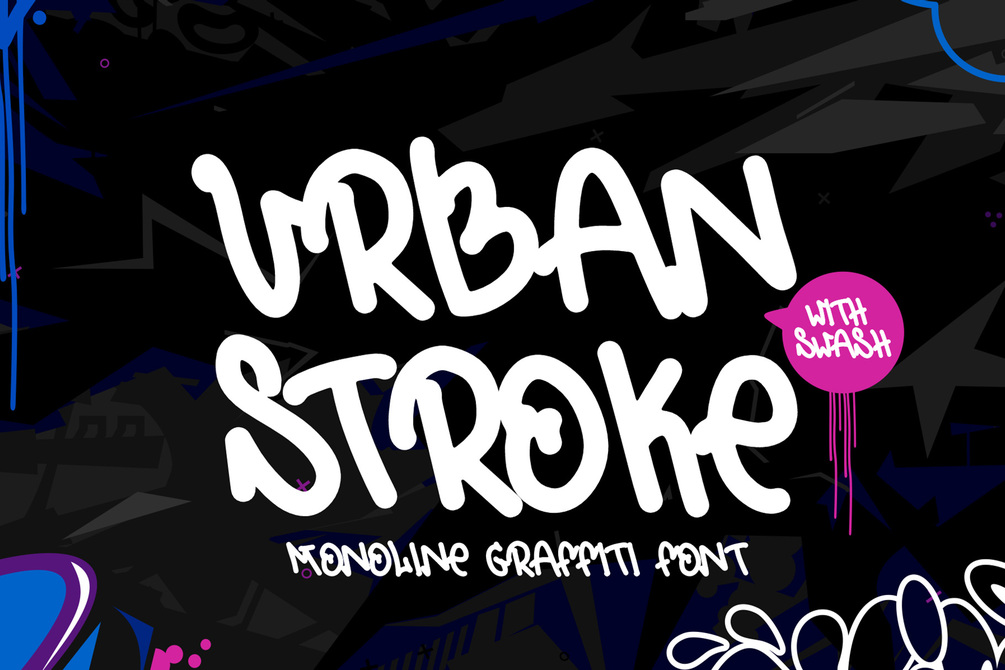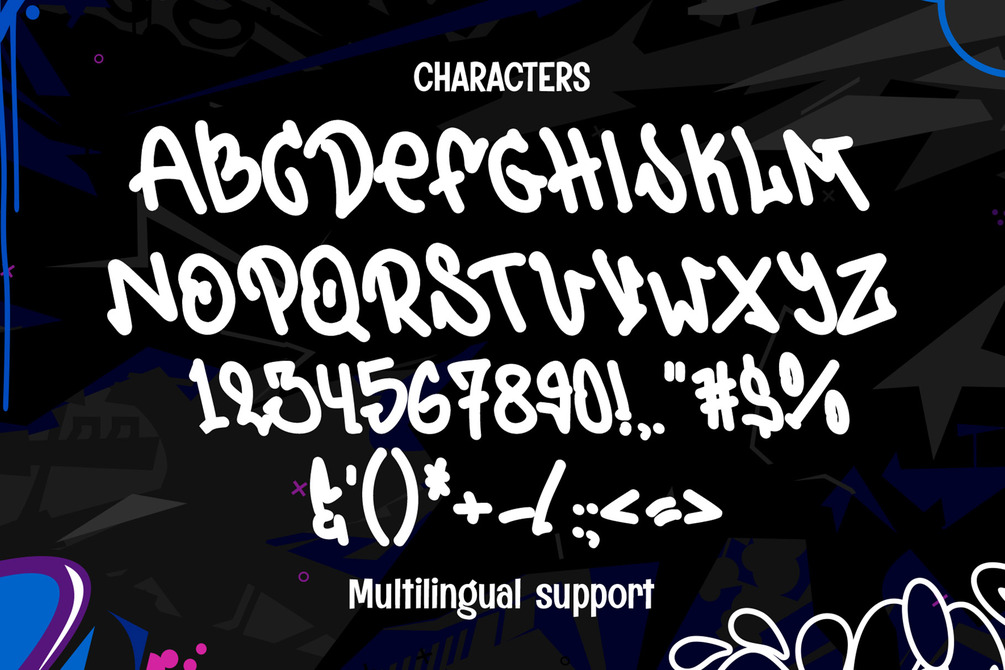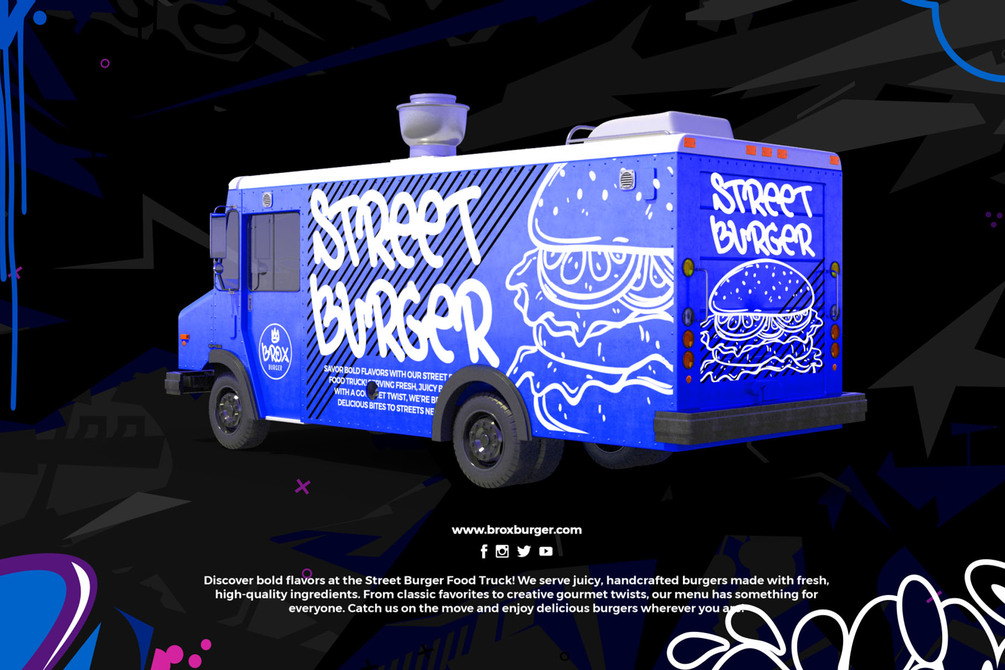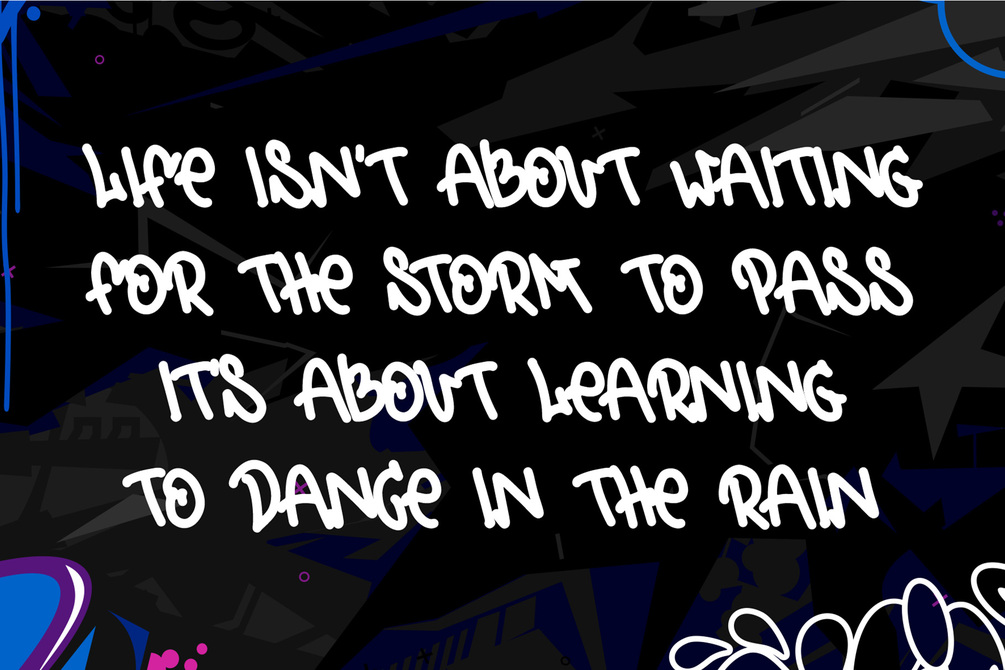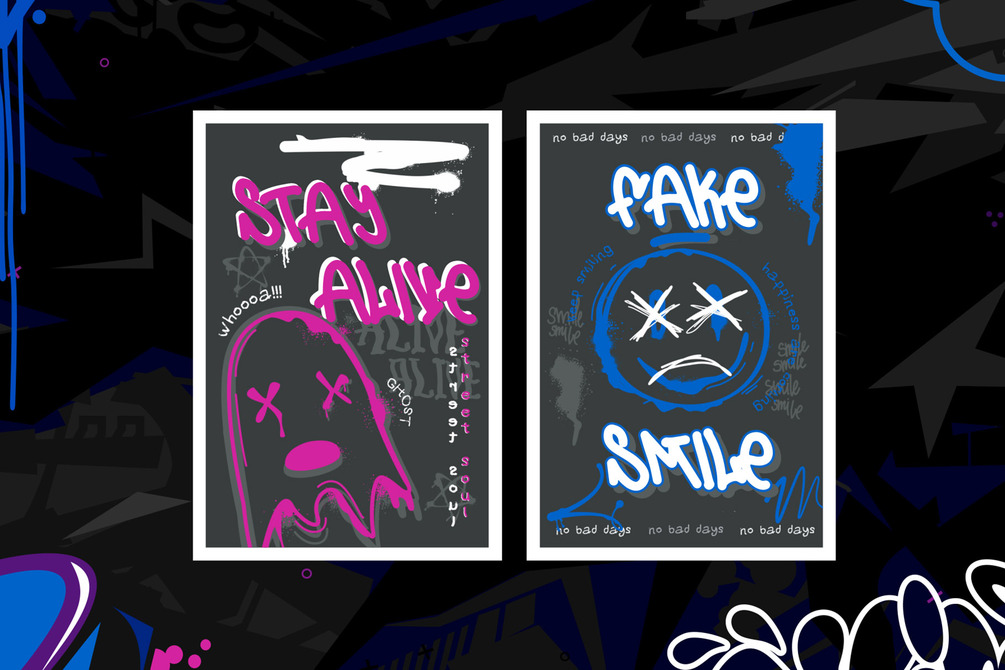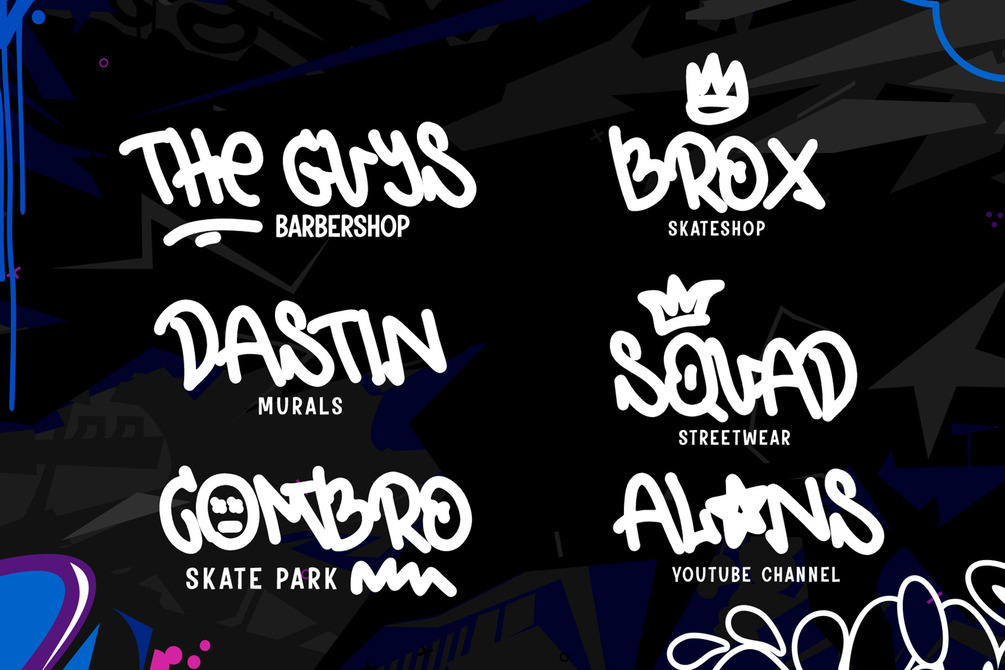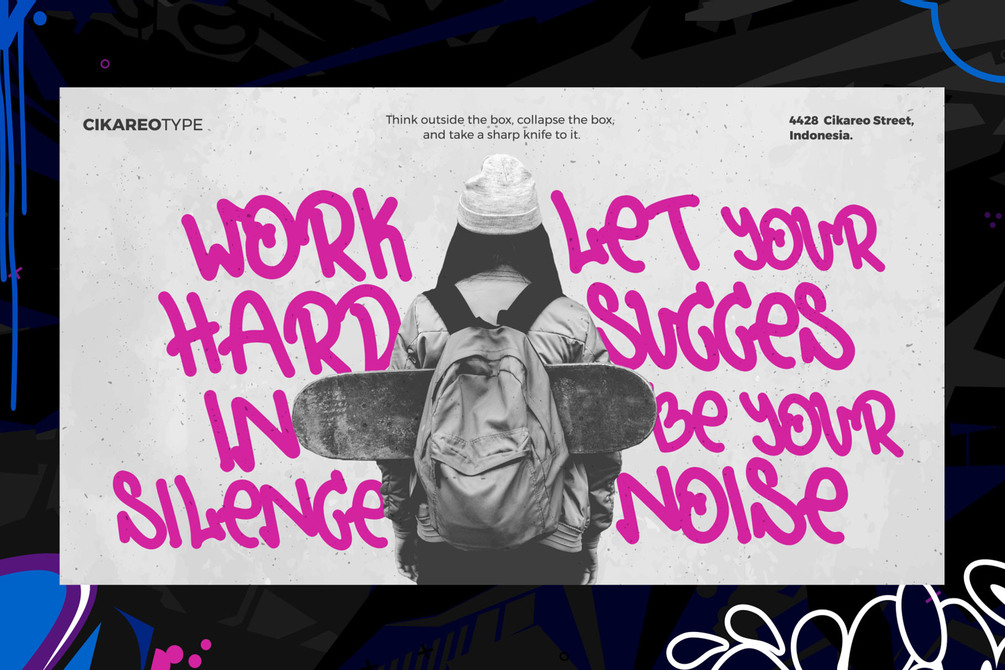
Urban Stroke is a expressive swashed monoline graffiti font that blends the clean simplicity of monoline lettering with the energetic flair of dynamic swashes. This font is designed to capture the raw, artistic essence of street style while maintaining a polished and versatile aesthetic. The included swashes add a sense of motion and creativity, making every letter pop with personality. Whether you're working on edgy streetwear designs, vibrant logos, urban-inspired branding, or attention-grabbing headlines, Urban Stroke delivers a unique balance of sophistication and urban cool. Its clean yet dynamic strokes make it ideal for various creative applications, including posters, digital art, social media graphics, or even personalized merchandise. Urban Stroke bring your designs to life with its modern, graffiti-inspired vibe and bold visual impact. It’s the perfect choice for anyone looking to make a statement while keeping a stylish edge.
• Multilingual Support
• Versatile for branding, headline, or printing product